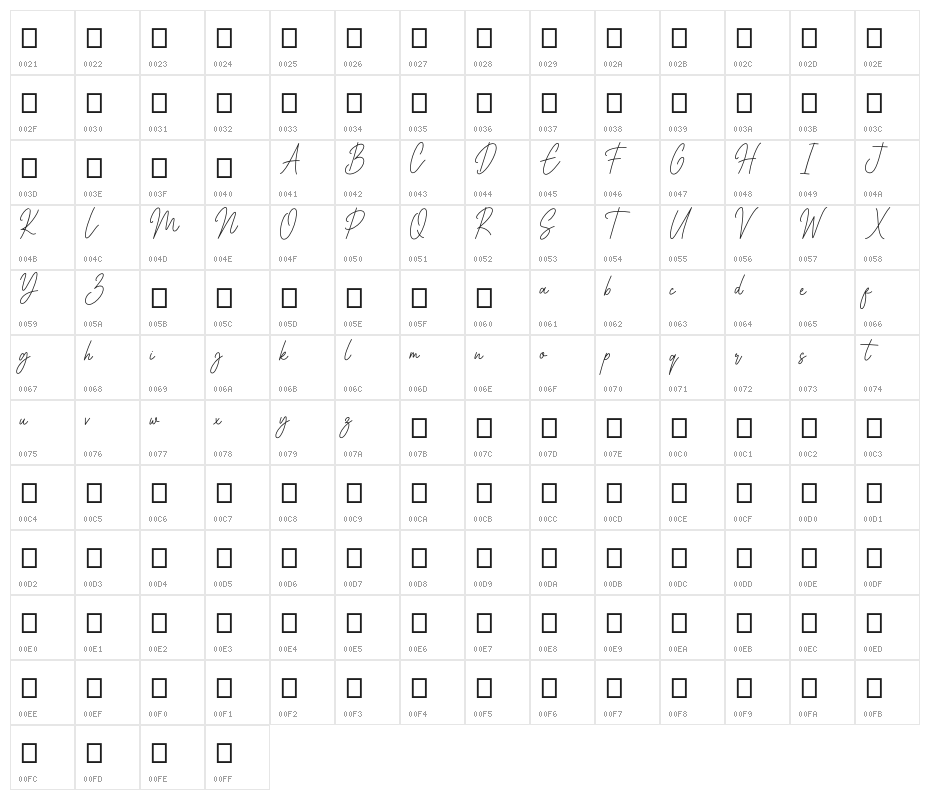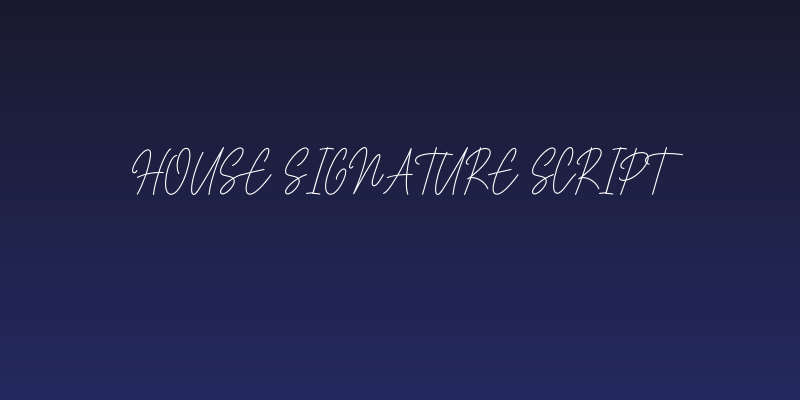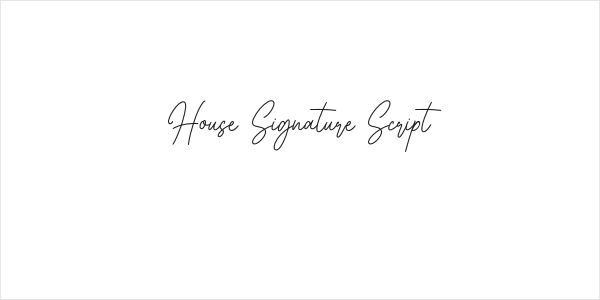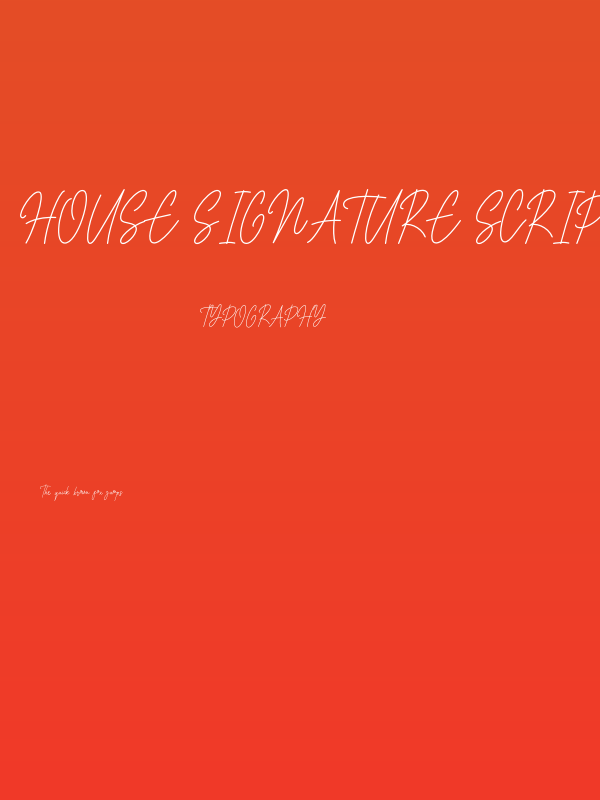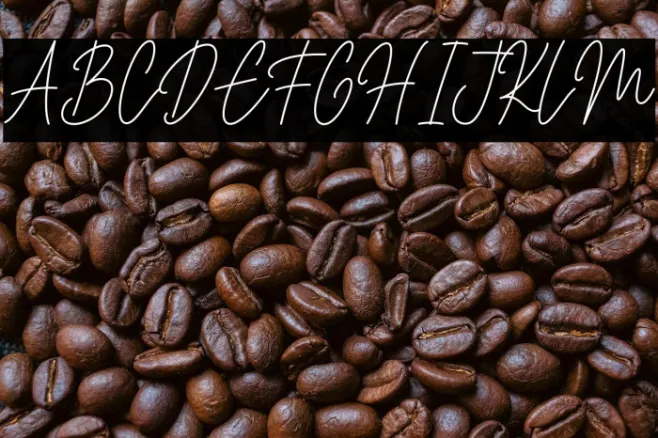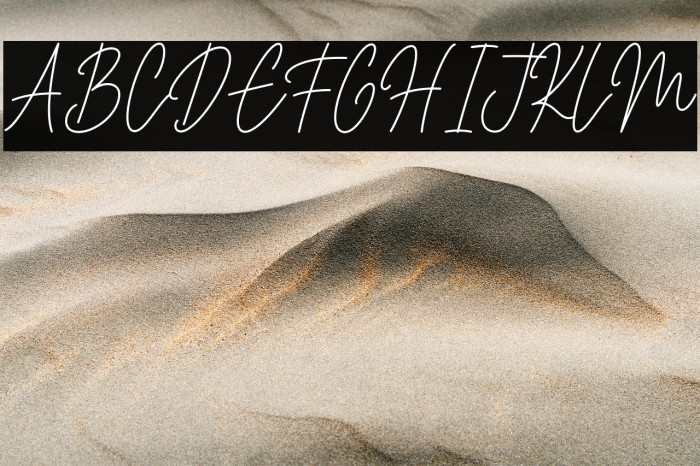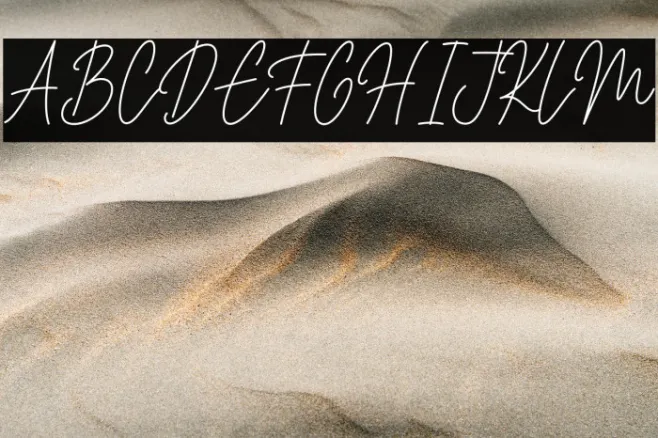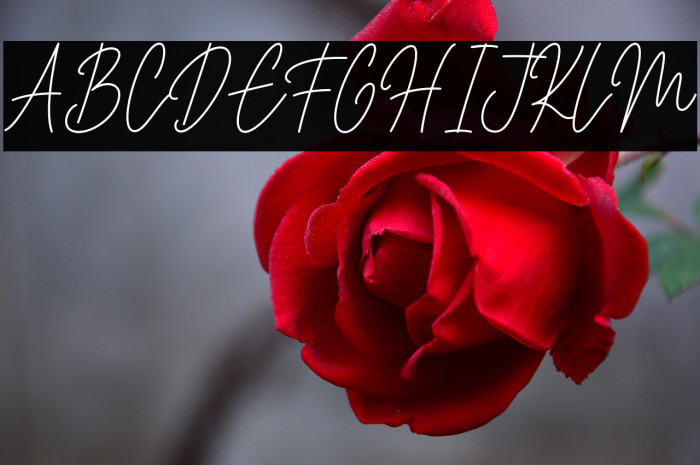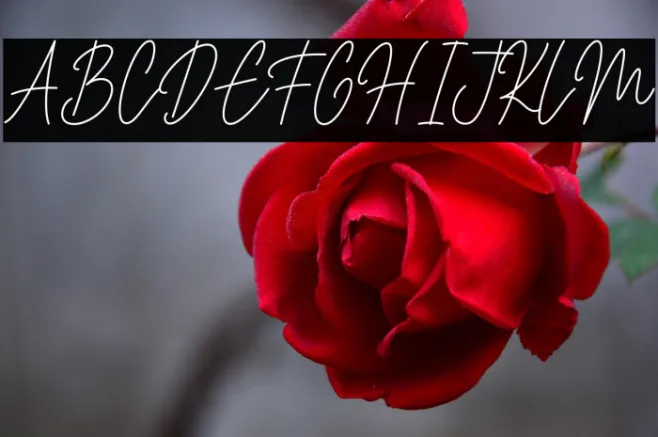
House Signature Script Font
House Signature Script Description
This elegant script font features a flowing, cursive style that mimics the fluidity of a handwritten signature. The uppercase letters are tall and graceful, with sweeping curves and loops that add a touch of sophistication. The lowercase letters maintain a consistent slant and are connected, enhancing the script's natural flow. The font's thin strokes and delicate lines give it a refined appearance, making it suitable for formal invitations, branding, and personal signatures. Its overall aesthetic is both modern and timeless, capturing the essence of classic calligraphy with a contemporary twist.